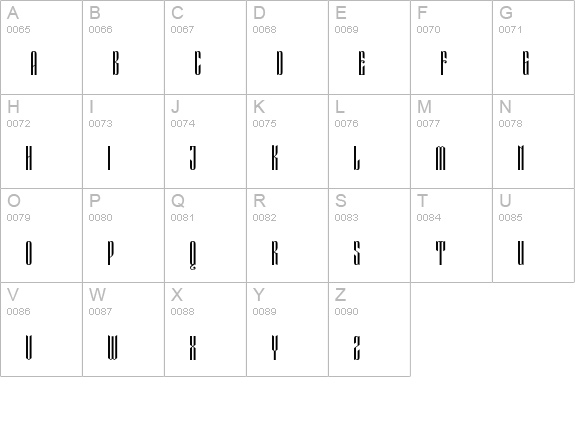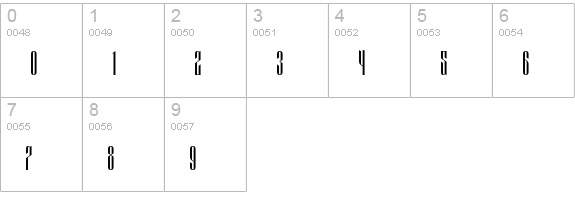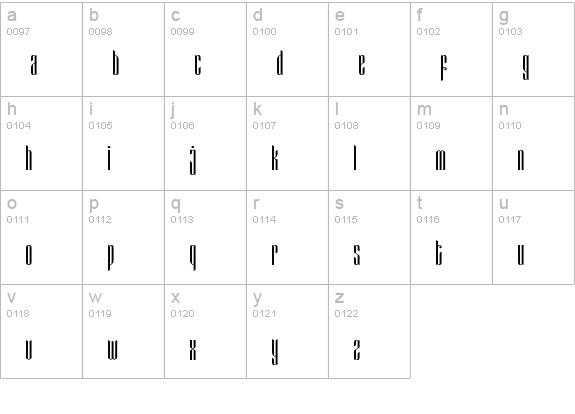
Eveagita Luxury Thin is a delicate, low-contrast variant in the Eveagita typeface family \xE2\x80\x94 well suited to fashion editorial, minimal branding, and high-contrast display.
Eveagita Luxury Thin font is a sophisticated and elegant typeface perfect for adding a touch of luxury to your design projects. This sleek and modern font features thin lines and stylish curves that exude a sense of refinement and class. Its minimalistic design makes it versatile and suitable for a wide range of applications, from branding to editorial design. The best part? Eveagita Luxury Thin font is available for free download at FontsMarket.com. You can easily enhance your projects with this high-quality font without breaking the bank. Don't miss out on the opportunity to elevate your designs with this exquisite typeface that will surely make a lasting impression. Download Eveagita Luxury Thin font today and experience the luxury of premium typography at no cost.